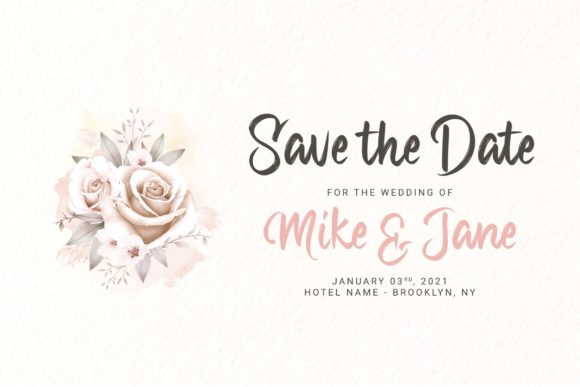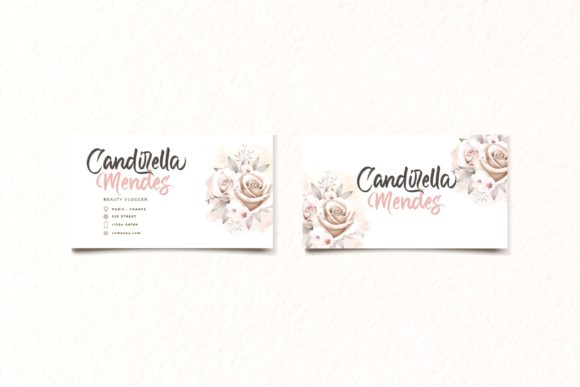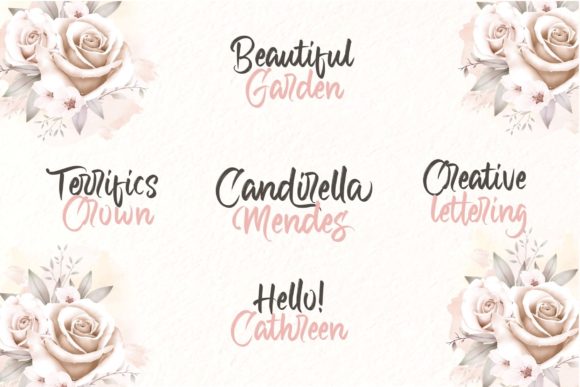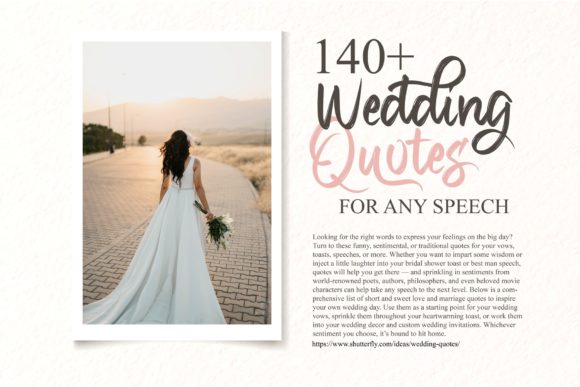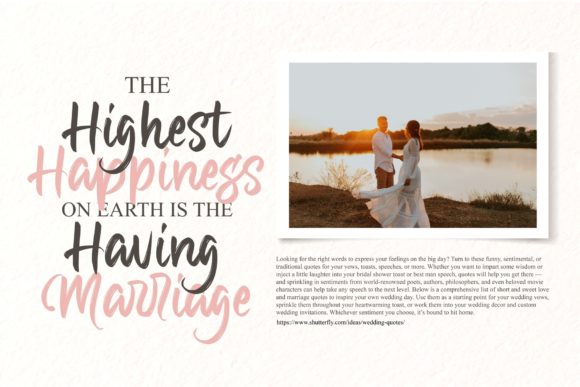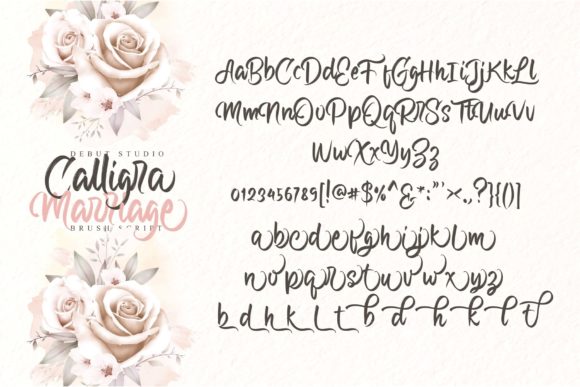
Introducing Calligra Marriage Font: Elevate Your Designs with Elegance and Playfulness
Are you a designer, crafter, or DIY enthusiast looking for a font that can add a touch of elegance and playfulness to your creative projects? Look no further than the Calligra Marriage Font. This lovely script font is designed to make your designs stand out with its charming and whimsical characters that seem to dance along the baseline.
What Makes Calligra Marriage Font Special?
Calligra Marriage Font is a unique and versatile font that offers a range of features that make it perfect for a variety of creative projects. Here are some of its key features:
- Charming and Playful Characters: The font features charming and playful characters that are sure to add a touch of whimsy to your designs. Each character is carefully crafted to create a sense of movement and energy.
- Script Font: The font is a script font, which means that it has a flowing and connected feel. This makes it perfect for creating elegant and sophisticated text that is sure to impress.
Uses for Calligra Marriage Font
Calligra Marriage Font is a versatile font that can be used for a wide range of creative projects. Here are some ideas to get you started:
- Wedding Invitations: The font’s elegant and playful characters make it perfect for wedding invitations, save-the-date cards, and other wedding-related stationery.
- Signs and Banners: The font’s large and clear characters make it perfect for signs and banners. Use it to create eye-catching signs for events, sales, and promotions.
- Social Media Graphics: The font’s playful and whimsical characters make it perfect for social media graphics. Use it to create eye-catching graphics for Facebook, Instagram, and other social media platforms.
- Branding and Packaging: The font’s elegant and sophisticated feel makes it perfect for branding and packaging. Use it to create unique and memorable logos, labels, and packaging.
Tips for Using Calligra Marriage Font
Here are some tips for using Calligra Marriage Font in your designs:
- Use it with Contrast: Use the font with contrasting colors to make it stand out. For example, use a light color for the text and a dark color for the background.
- Experiment with Sizes: Experiment with different font sizes to create visual interest. Use larger font sizes for headings and smaller font sizes for body text.
- Add Swashes and Glyphs: Use the font’s swashes and glyphs to add a touch of elegance and sophistication to your designs.